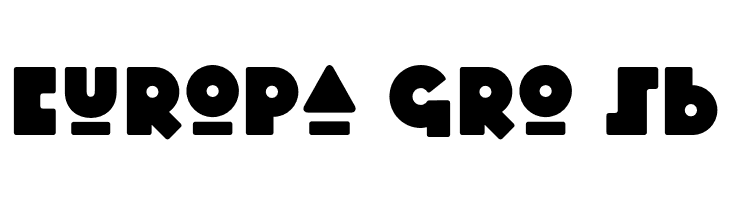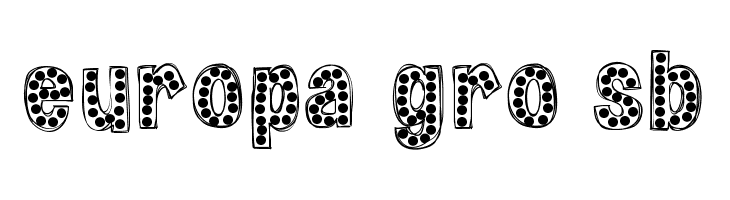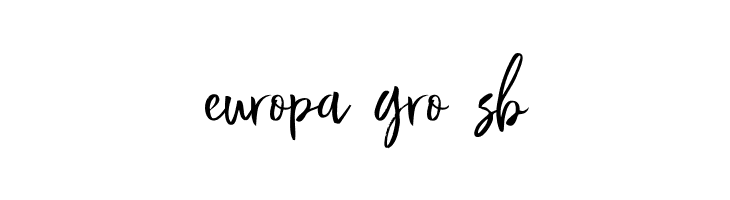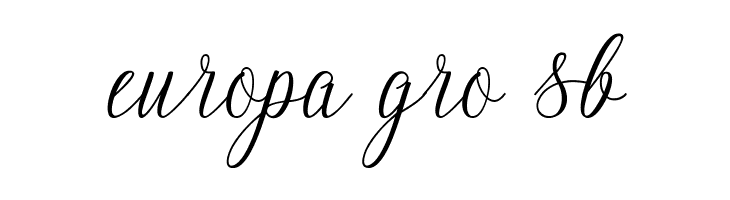
( Fonts by Akos Polgardi )
A bold, geometric font with a futuristic and digital aesthetic.
( Akos Polgardi - akospolgardi.com/ )
A bold, geometric font with unique cutouts and decorative elements.
( Jen Jones - www.jenjonesfonts.com )
A playful, polka dot-filled decorative font with a hand-drawn style.
( JoeeCreative - Joe Creative - creativemarket.com/JoeeCreative )
A dynamic, expressive handwritten font with fluid strokes and a brush-like texture.
( JoeeCreative - Joe Creative - creativemarket.com/JoeeCreative )
A refined and elegant script font with flowing, connected letters.
( Lazy Poony )
A flowing, cursive script font with interconnected characters and a polished look.
( Nick Polifroni - www.remedy667.com/ )
A modern, geometric font with clean lines and uniform structure.
( Nick Polifroni - www.remedy667.com/ )
A modern, geometric font with clean lines and balanced proportions.
( Pollem Studio - Muhammad Nur - www.creativefabrica.com/designer/polem/ref/2050/ )
An elegant, flowing script font with graceful loops and cursive style.
( Pollem Studio - Muhammad Nur - www.creativefabrica.com/designer/polem/ref/2050/ )
A cursive, handwritten font with elegant, flowing strokes.